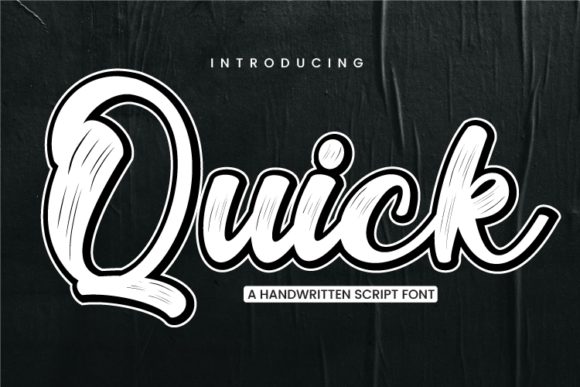
Introducing Quick Font, the ultimate script font for all your wedding-related needs. Created by Rvandtype, this captivating font family is here to elevate your designs and add a touch of elegance to any project.
Are you planning a wedding and searching for the perfect text font that will make your invitations, programs, and signage truly stand out? Look no further! Quick Font is the answer to your prayers. Its exquisite script style brings a sense of sophistication and charm, making it the best choice for wedding-related materials.
With Quick Font, you can effortlessly create stunning chalkboard quotes and captivating teaching materials. Its authentic brush strokes give your designs a personal and realistic feel, leaving a lasting impression on anyone who lays eyes on them.
But that's not all – Quick Font goes above and beyond to provide you with a seamless experience. Thanks to its PUA encoding, accessing all the beautiful glyphs and swashes is a breeze. Say goodbye to limitations and hello to endless possibilities.
Impress your clients, friends, and loved ones with the impeccable style of Quick Font. Whether you're designing wedding invitations, crafting heartfelt quotes, or creating educational resources, this font will be your ultimate companion.